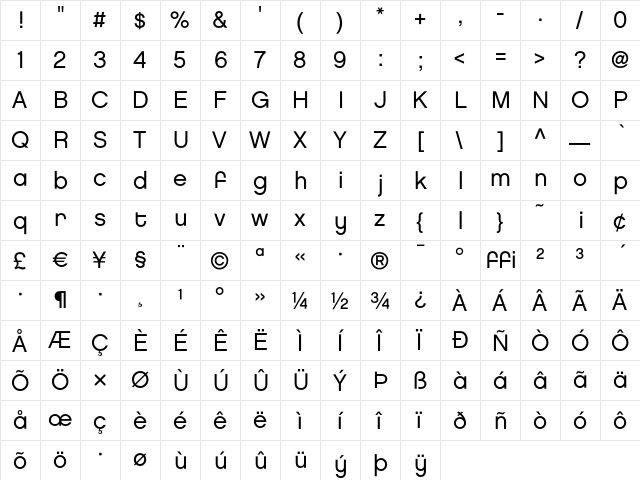
Chalet LondonNineteenEighty Font Preview
Chalet LondonNineteenEighty
Design Context for Chalet Typeface
Chalet offers clean, dependable letterforms without strong stylistic allegiance, making it a practical choice for designers who need flexibility.